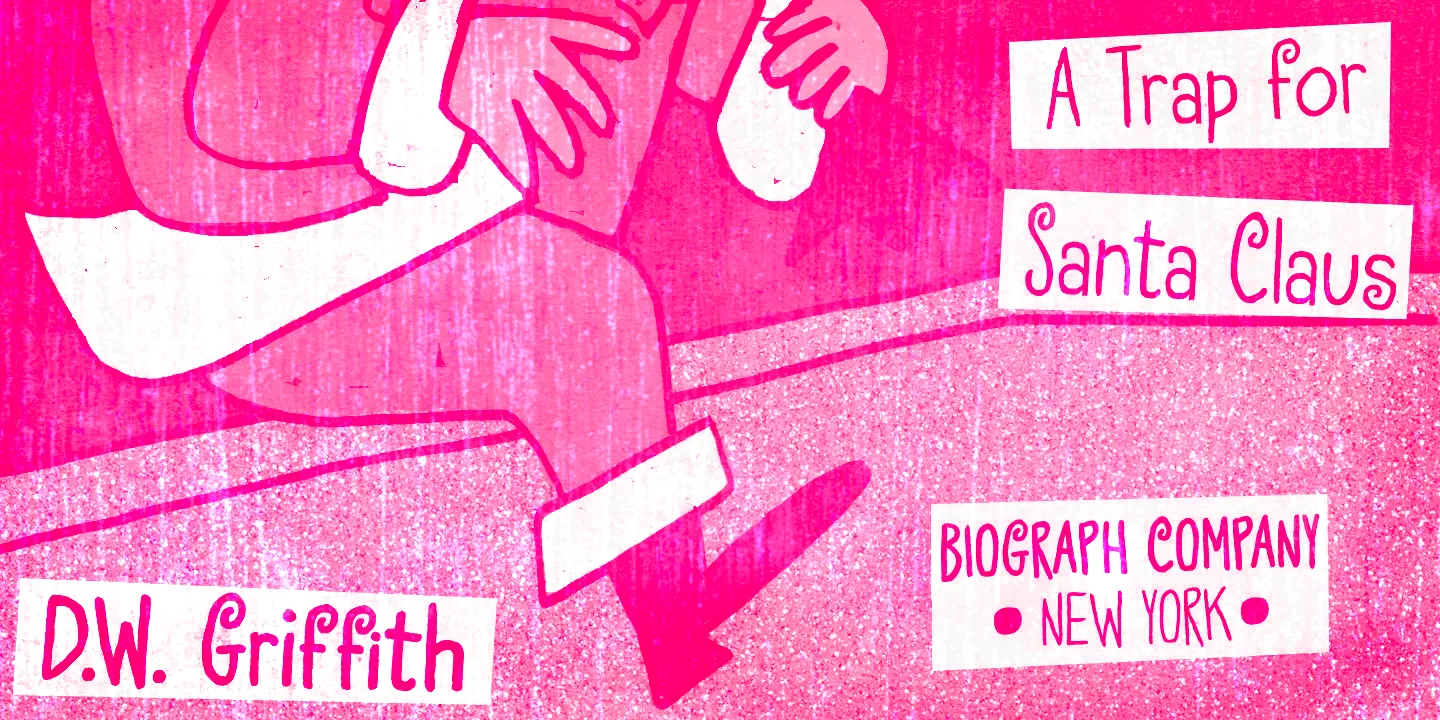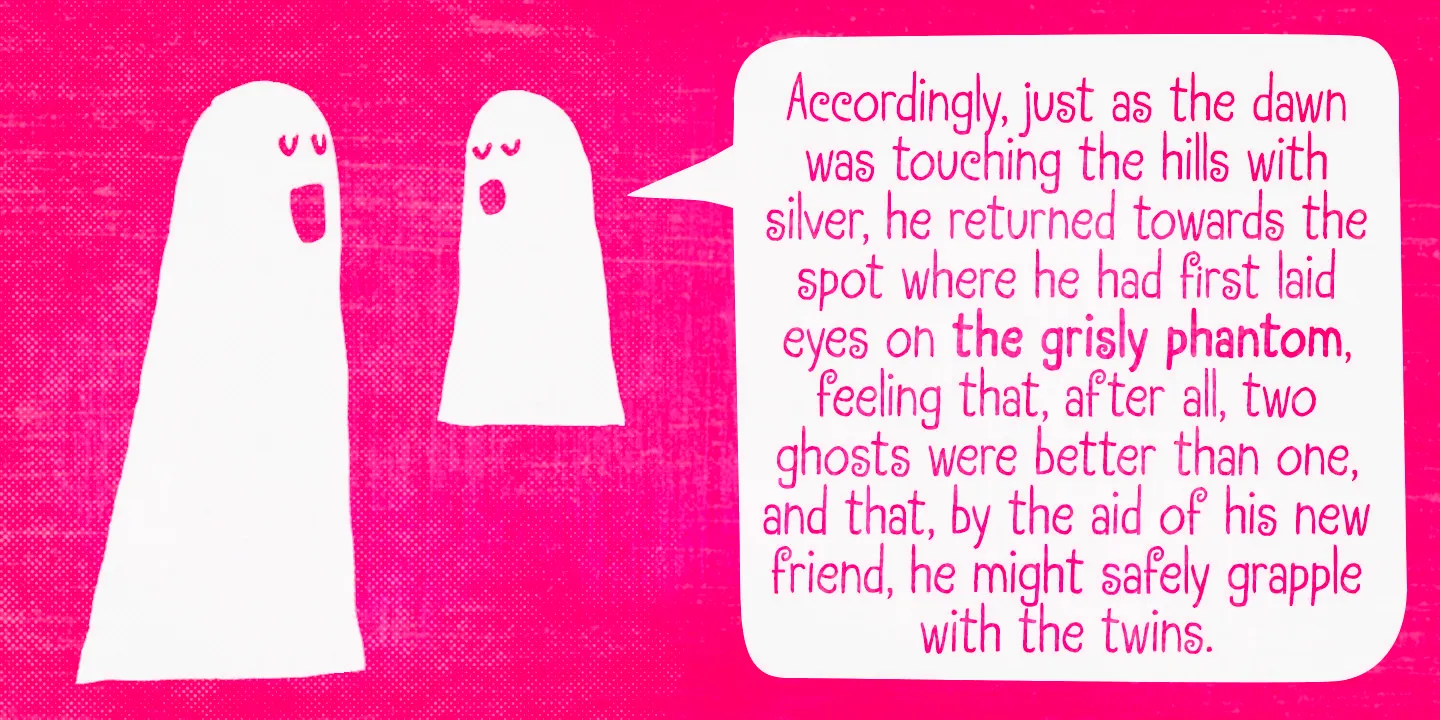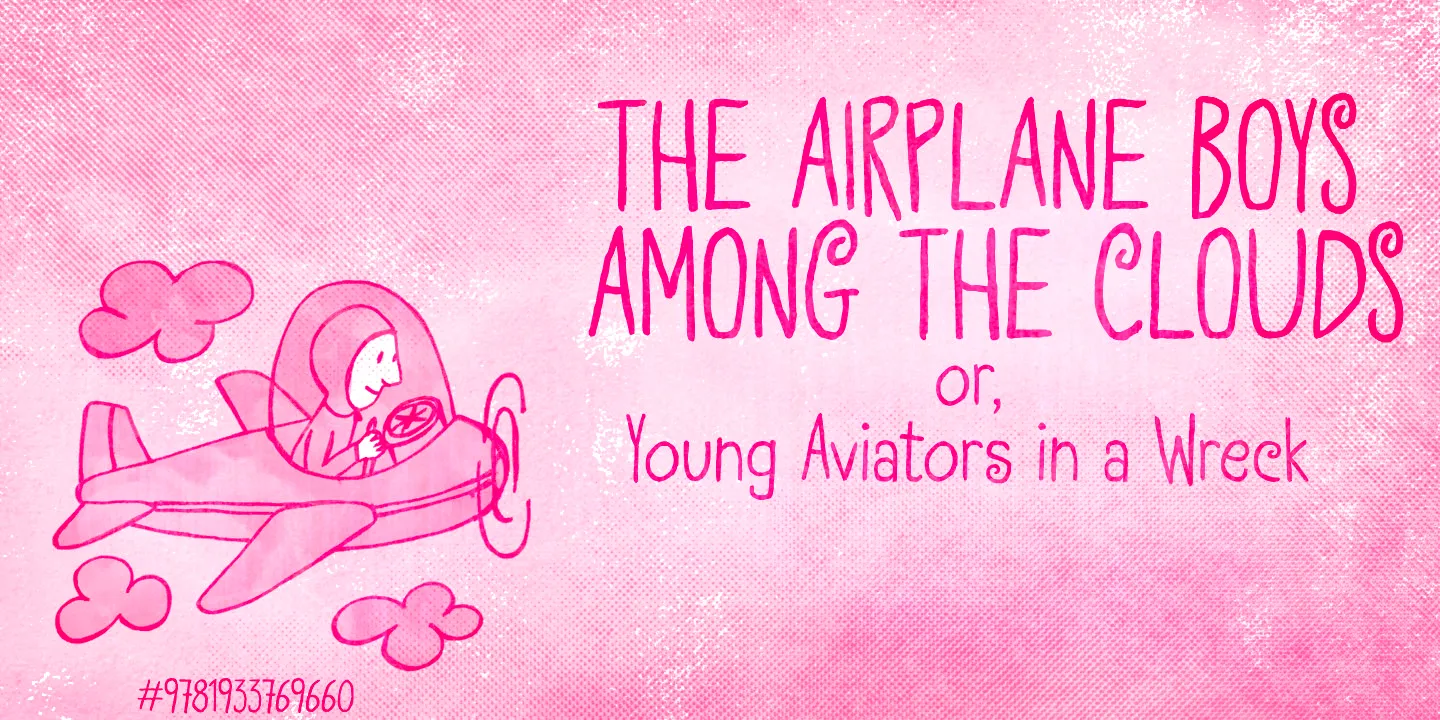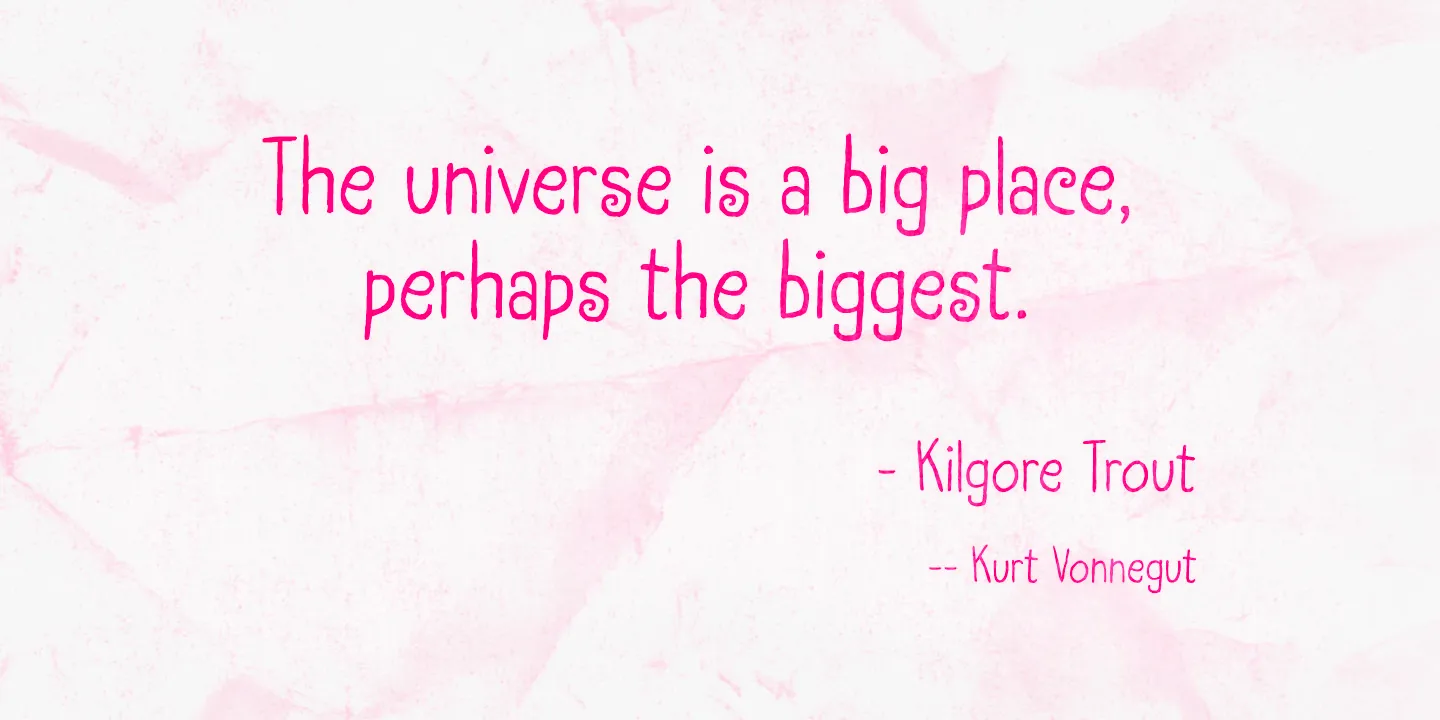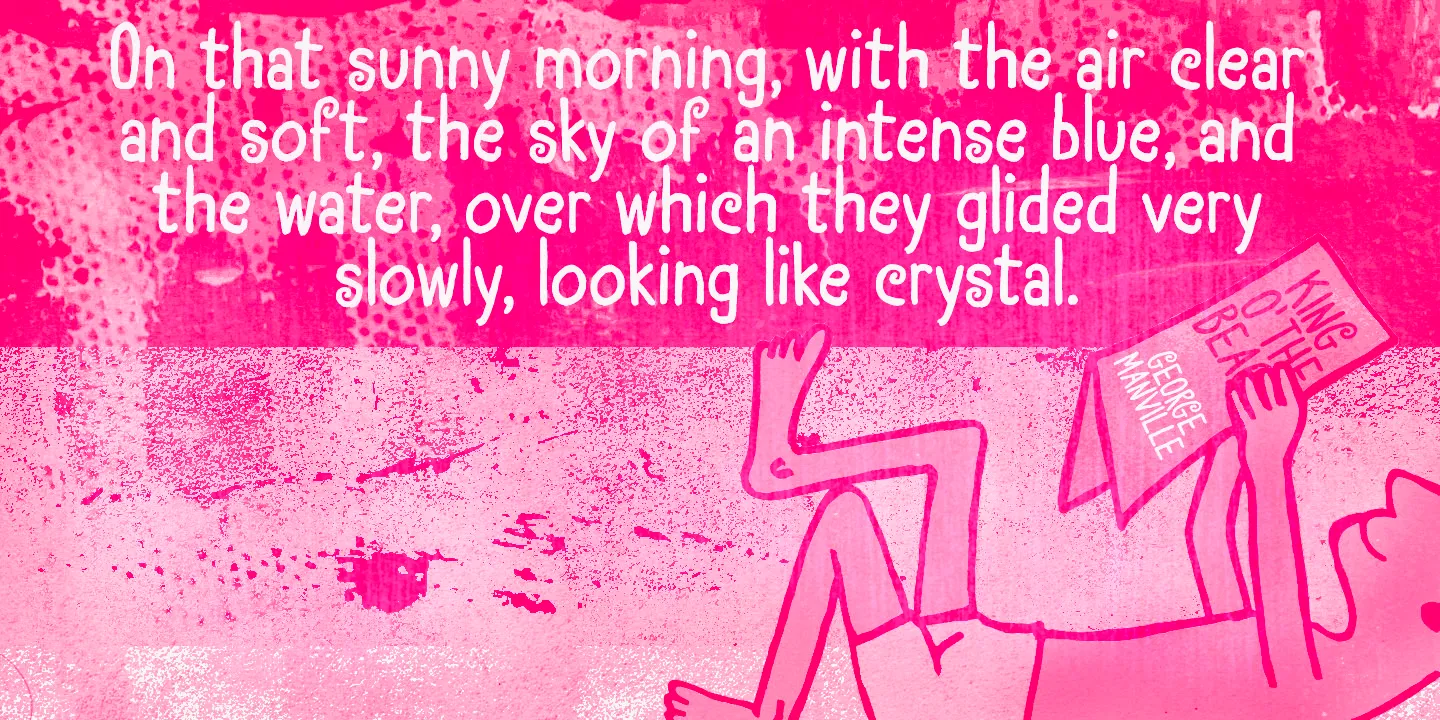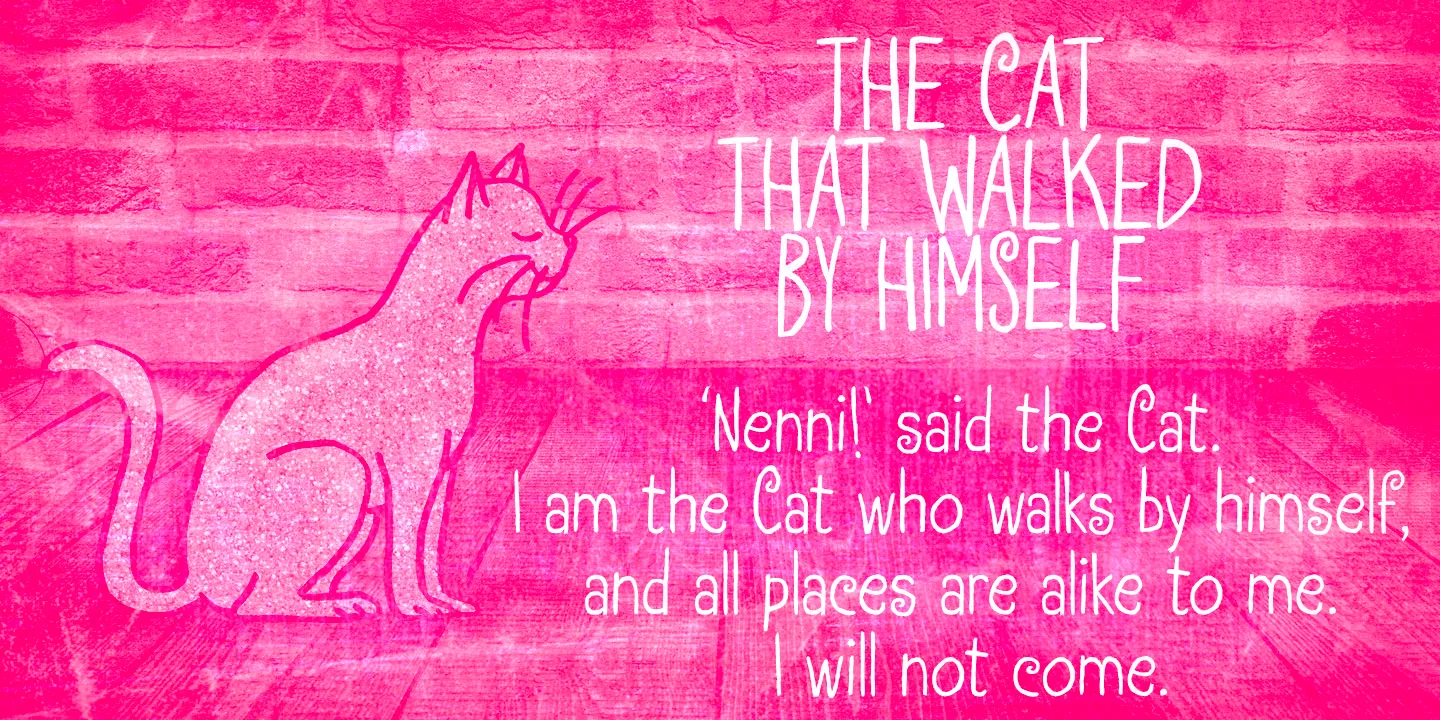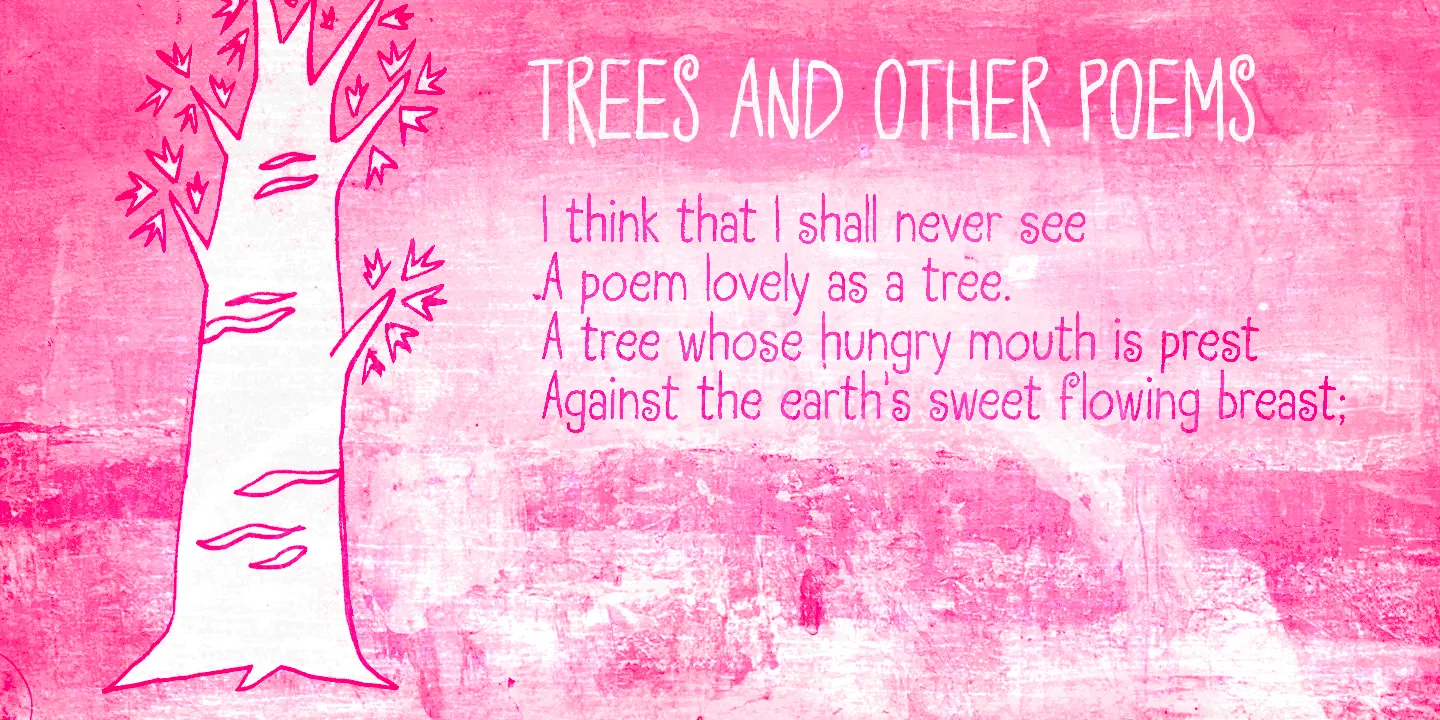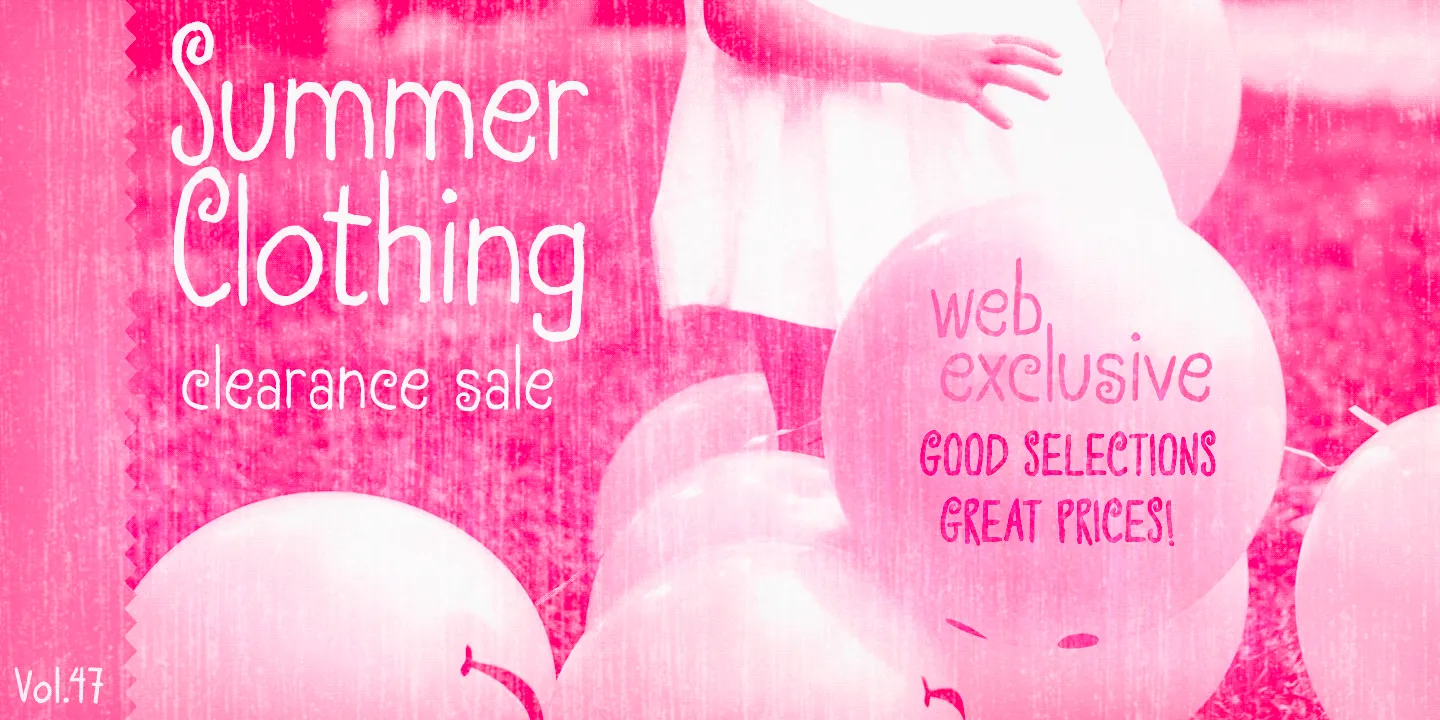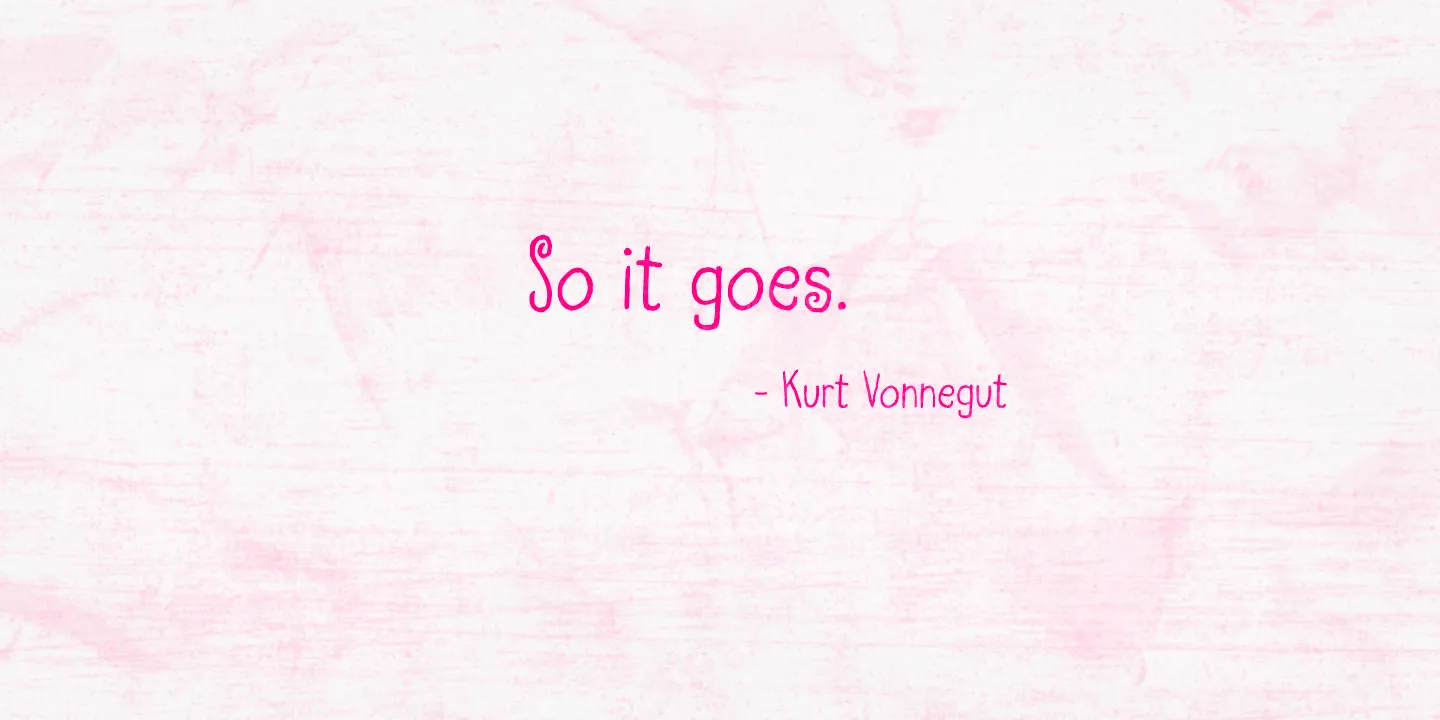
Transmogrified Fonts
Transmogrified
Transmogrified is a casually sweet, handwritten typeface. It began as the uppercase from Transmogrifier — inspired by Cuban posters by the talented graphic artist Eduardo Muñoz Bachs — but was simplified into something friendlier, and a lowercase was added to make it more usable for text. Pair it with Transmogrifier and make your designs more playful. It is childlike and friendly, perfect for all things kids, play, and casual.